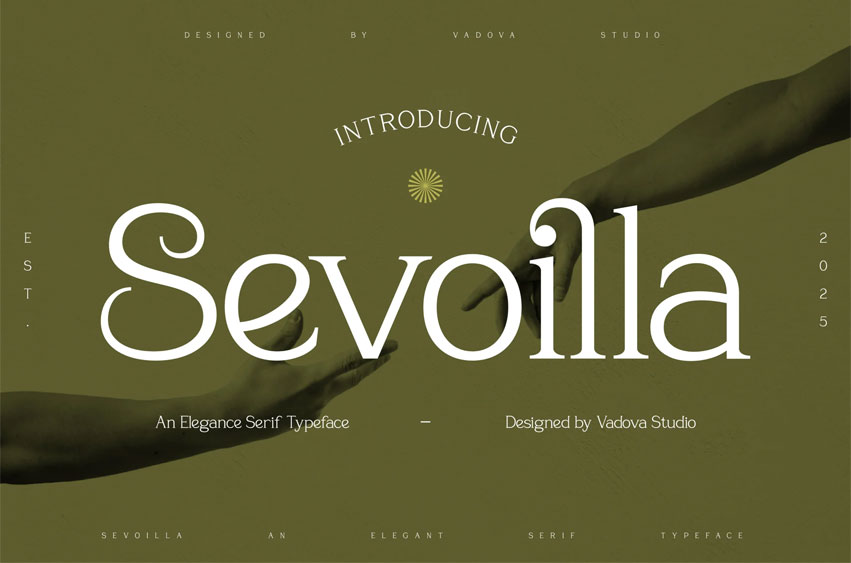
Sevoilla Font
Sevoilla Font is an elegant serif typeface with refined curves and luxurious details, making it perfect for high-end branding, editorial design, fashion magazines, wedding invitations, beauty packaging, and sophisticated logo creation, ensuring a timeless and graceful visual appeal.